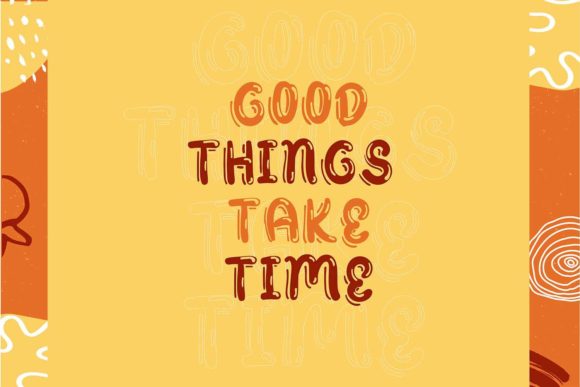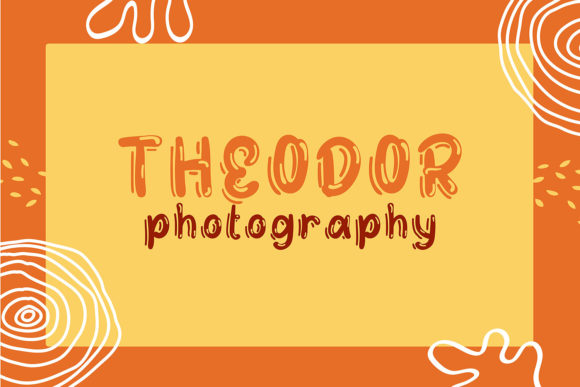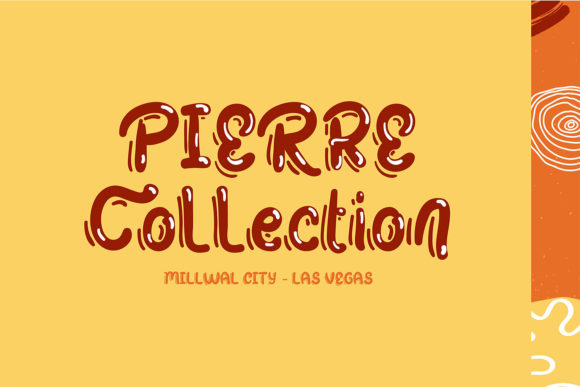
Introduction to Sauce Paperoni Font
Sauce Paperoni is a playful display font.
Inspired by the culinary world it will look amazing on greeting cards, branding materials, quotes, posters, and many more.